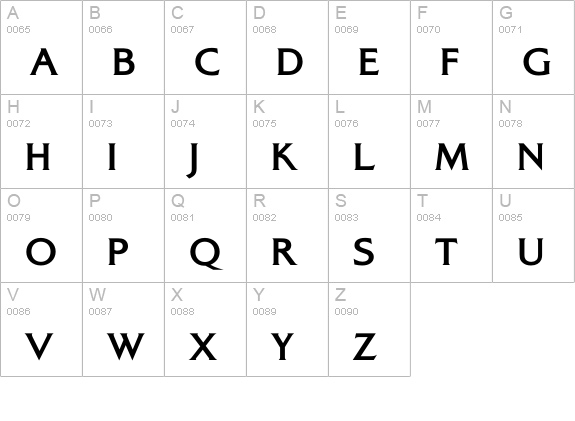
AlexonBold Font Details
AlexonBold is a modern and stylish font that exudes confidence and elegance. With its bold and eye-catching design, this font is perfect for making a statement and standing out in any project. The clean lines and sharp edges of AlexonBold give it a sleek and professional appearance, making it suitable for a wide range of design applications. What sets AlexonBold apart is not only its striking aesthetic appeal but also its versatility. Whether you're creating a logo, designing a poster, or crafting a website, this font will enhance your work and leave a lasting impression on your audience. Its bold and commanding presence ensures that your message will be noticed and remembered. And the best part? AlexonBold is available for free download at FontsMarket.com. That's right, you can easily access this premium font at no cost, making it a valuable addition to your design toolkit. Don't miss out on the opportunity to elevate your projects with the impactful and stylish AlexonBold font today!